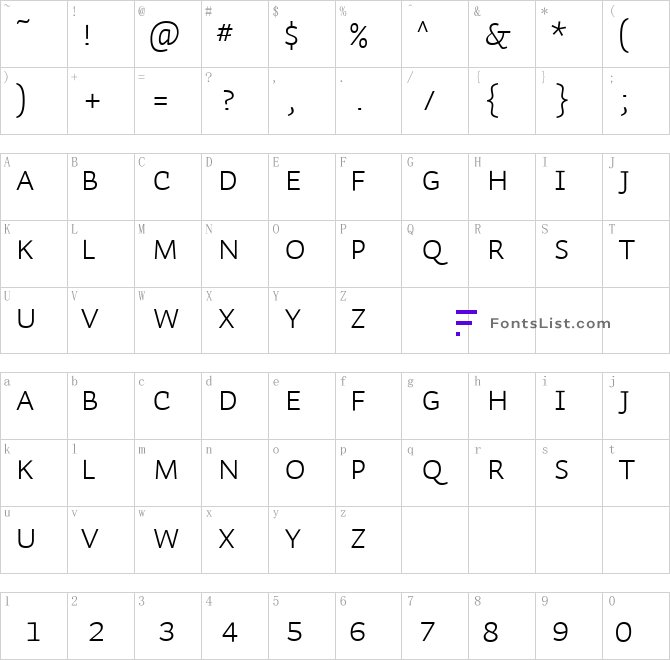
- Font Name:Auto 1 Lt SmCp
- Subfamily:Underware: Auto 1 Light SmCp: 2004
Auto1-LightSmCp.ttf is a very beautiful artistic font, Auto1-LightSmCp.ttf is widely used in the design and printing of various books and pictures,Auto1-LightSmCp.ttf has a strong visual impact,Auto1-LightSmCp.ttf is a commonly used font in newspapers, magazines and books, and is used in posters, e-commerce Poster design, store design, logo design, font design and other fields.Auto1-LightSmCp.